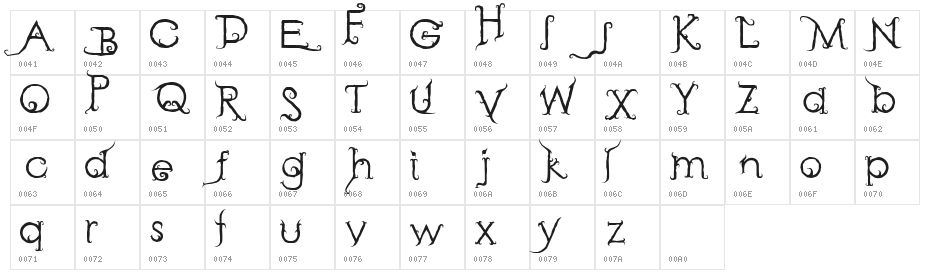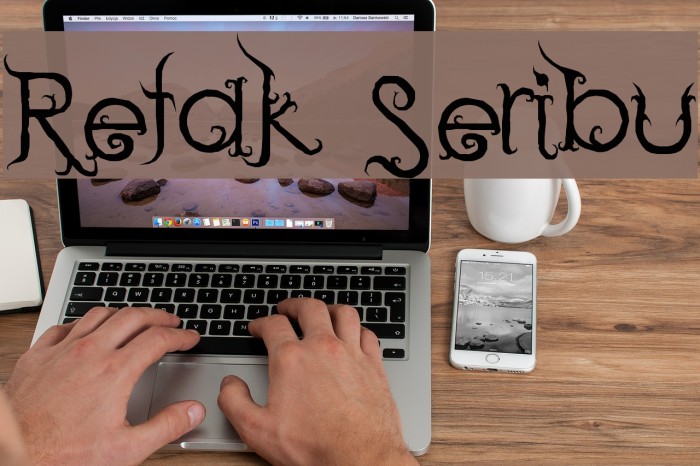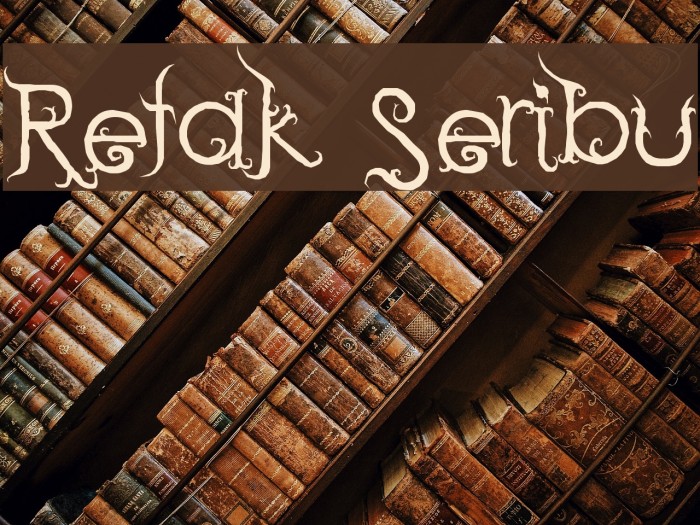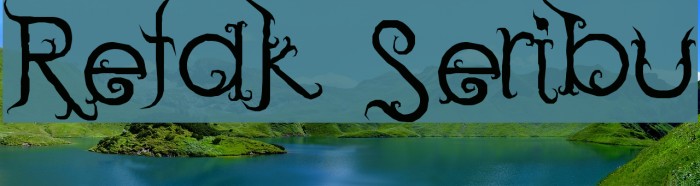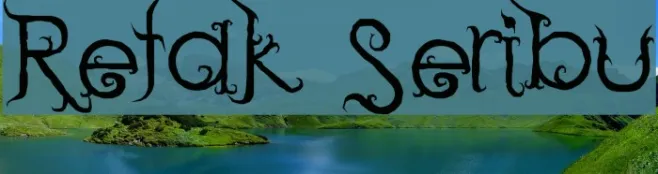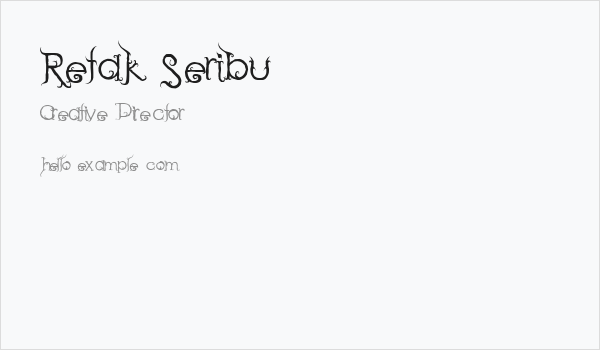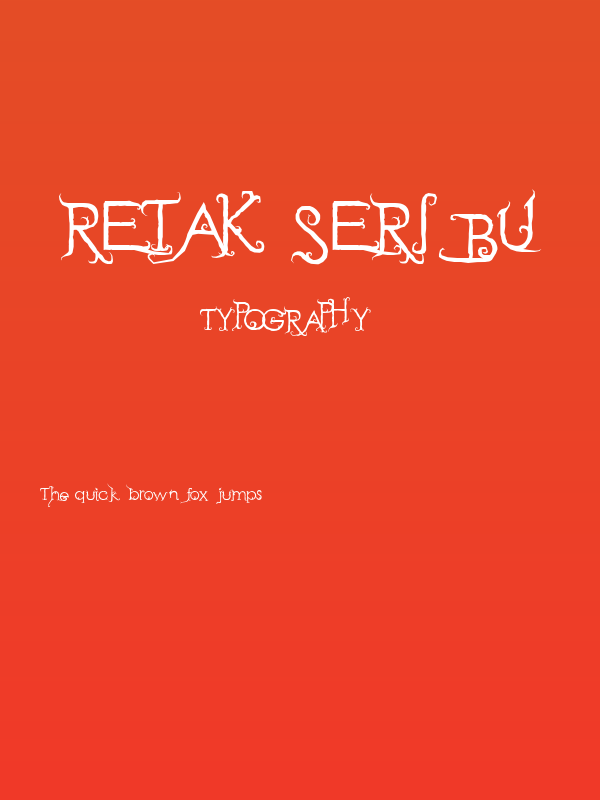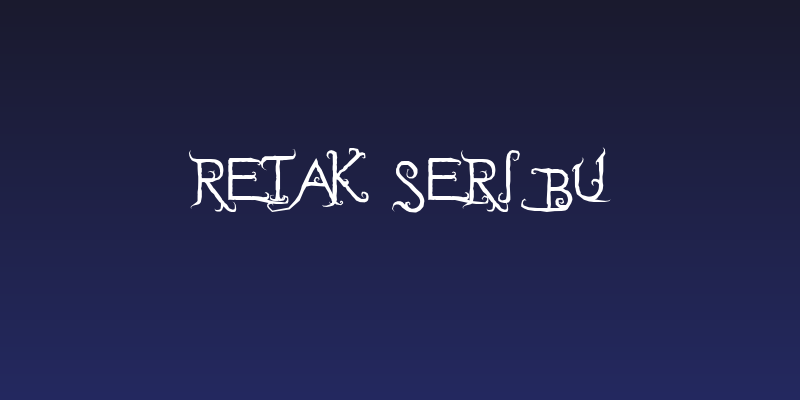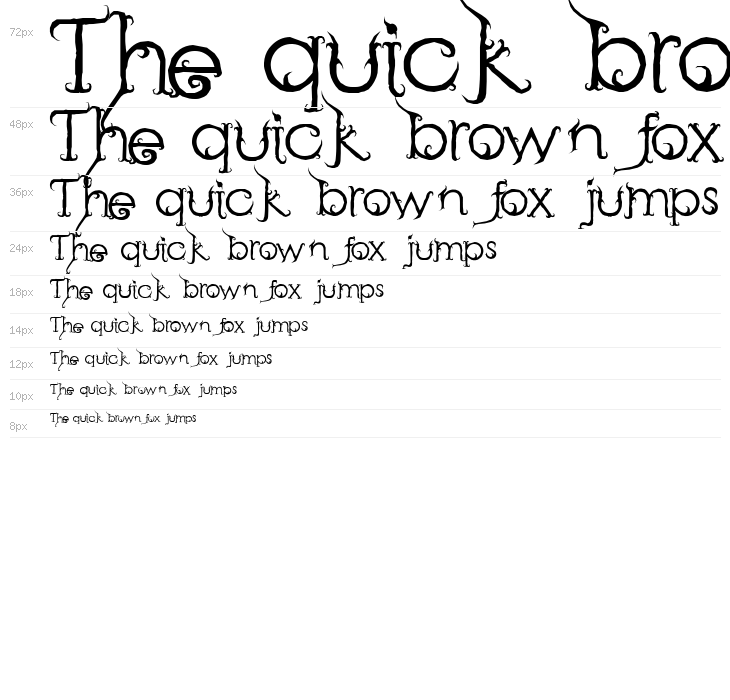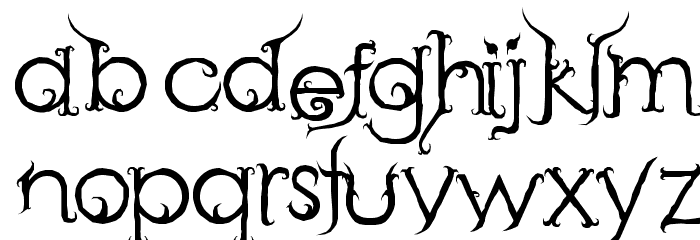
Retak Seribu Font
Retak Seribu Description
This font features an intricate and decorative style, characterized by its elaborate swirls and flourishes extending from the ends of the letters. The uppercase and lowercase letters share a consistent ornamental theme, with each character exhibiting unique embellishments that give it a whimsical and artistic appearance. The font's design is reminiscent of vintage or fantasy themes, making it suitable for projects that require a touch of elegance and creativity. The characters are well-defined, with a medium stroke contrast that enhances readability while maintaining the decorative elements.
| Proposed Projects | Ideal for fantasy-themed designs, invitations, book covers, and artistic posters. |